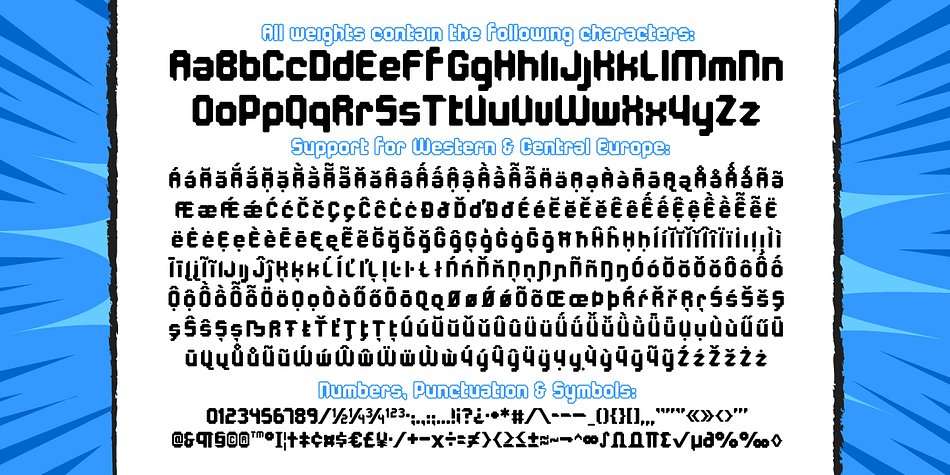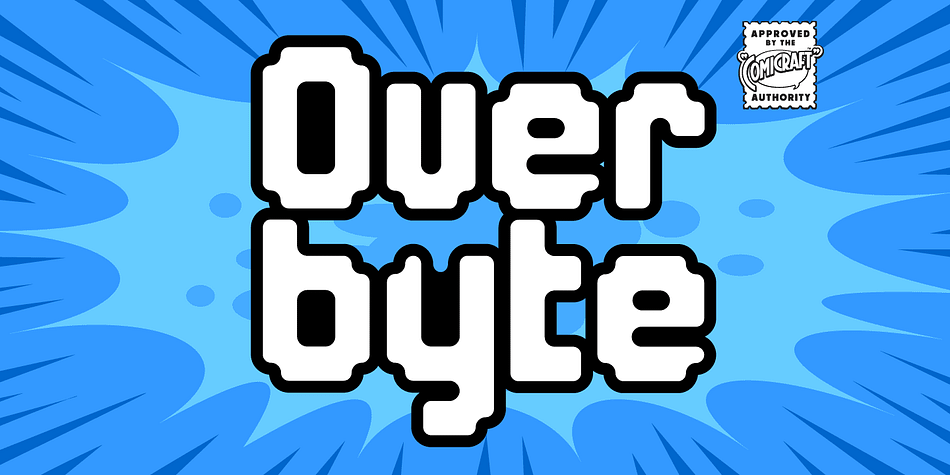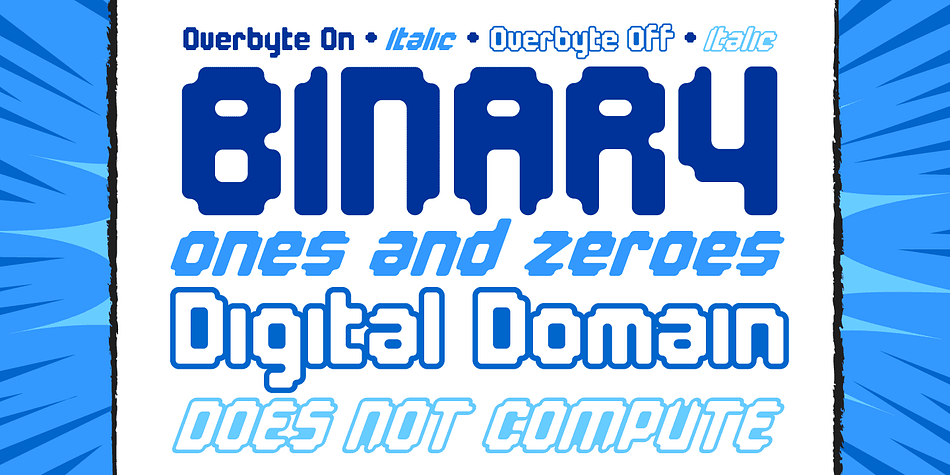
Designed by John Roshell and Eric Wong, Overbyte is a pixel and retro font family. This typeface has four styles and was published by Comicraft.
This digitally remastered high density lettering has been bitmapped out for you by Comicraft. Those of you harddriving through cyberspace on the information superhighway had better zap your prams and reboot your hard disk before you’re dragged into your system folder while OVERBYTE makes a major withdrawal from your ATM. Do not be fooled by the name, there’s nothing goofy about this typeface.